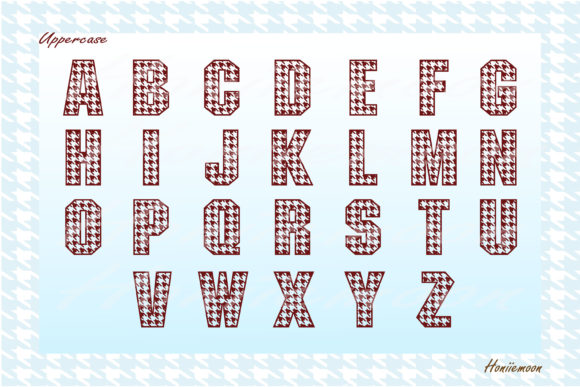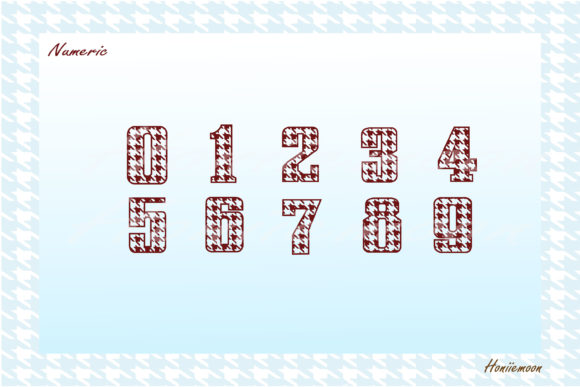
Introduction to Hound Stooth Font Font
Fonts play a crucial role in design, and the Hound Stooth Font font is a typeface that brings both character and versatility to any project. Whether you’re working on a branding project, a website, or a print design, the Hound Stooth Font font offers a unique style that can elevate your work.
| 📌 Font Name | Hound Stooth Font |
| 👤 Author | Honiiemoon |
Hound Stooth is a cool and fun decorative font.
It looks both fun and festive and it will enhance each of your designs The only limit is your imagination.
Key Features of Hound Stooth Font Font
The Hound Stooth Font font is more than just a typeface – it’s a design tool that helps you communicate your message with style and clarity. Its unique character set and versatile design make it suitable for a wide range of applications, from elegant invitations to bold headlines.
With its carefully crafted letterforms and balanced proportions, the Hound Stooth Font font ensures readability and visual appeal across all mediums.
The Hound Stooth Font font stands out with its unique design, exceptional readability, and versatility across various design applications.